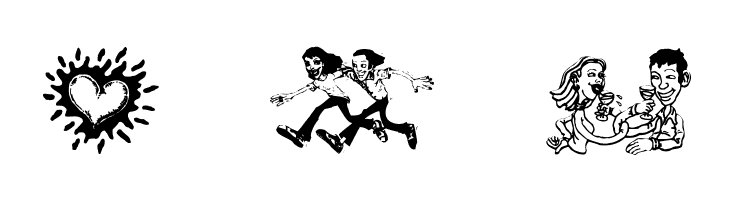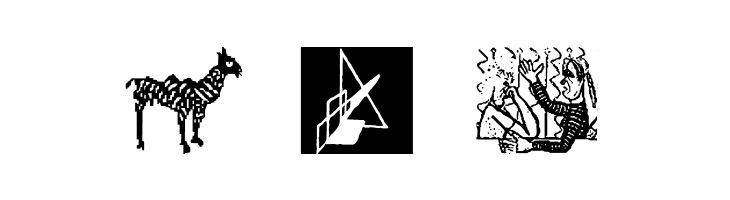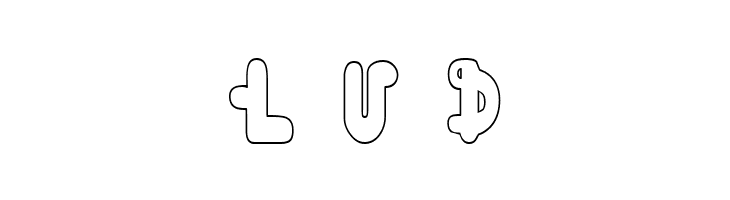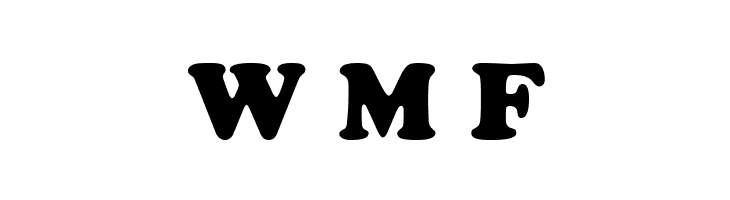
An artistic display font composed of modern art illustrations for each character.
A whimsical font featuring playful stick figure characters.
An abstract, artistic font with doodle-like characters and surreal illustrations.
A bold, geometric font with strong, uniform letterforms.
A cartoon-style illustrative set representing characters with humorous drawings.
A decorative, abstract font with intricate, geometric designs in circular forms.
An abstract collection of human face illustrations, not a traditional font.
A decorative font featuring intricate bird illustrations for each character.
Abstract, illustrative font with unique vector art for each character.
Cartoonish, narrative-driven display font with detailed character scenes.
An ornate, medieval-style decorative font with intricate illustrations.
A decorative font with intricate, culturally inspired illustrations for each character.
A collection of linocut-style illustrations, each character is a unique artwork.
A decorative font featuring macabre and medical-themed illustrations.
A pictogram font with diverse animal and human vector illustrations.
A pictorial, cartoon-style decorative font with unique illustrations for each character.
A decorative set of mystical and alchemical symbols with intricate designs.
A bold, artistic font with sharp angles and intersecting lines.
A playful, pictogram-style display font inspired by prehistoric and avant-garde art.
A bold, slab serif font with strong vertical lines and high contrast.
A playful series of fruit and vegetable characters with abstract facial features.
A bold, decorative font with ornate swirls and vintage flair.
A whimsical collection of dynamic pictograms depicting motion and activity.
Energetic pictogram font with action-themed icons.
Illustrative, character-based font depicting peace and war figures.
An abstract, decorative font featuring geometric symbols and artistic designs.
A playful collection of devilish character illustrations in a cartoonish style.